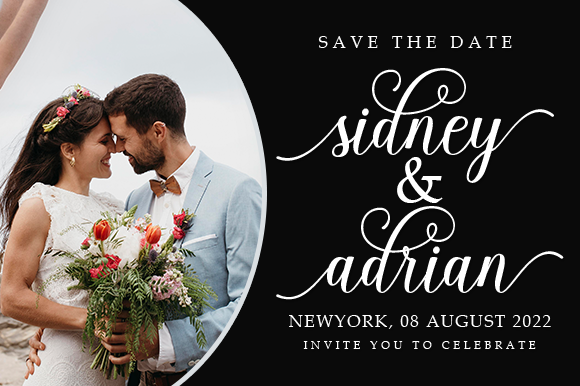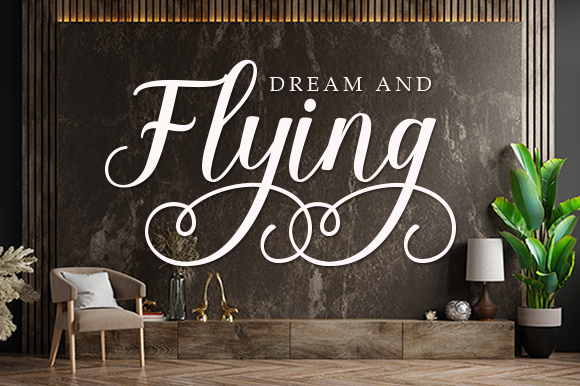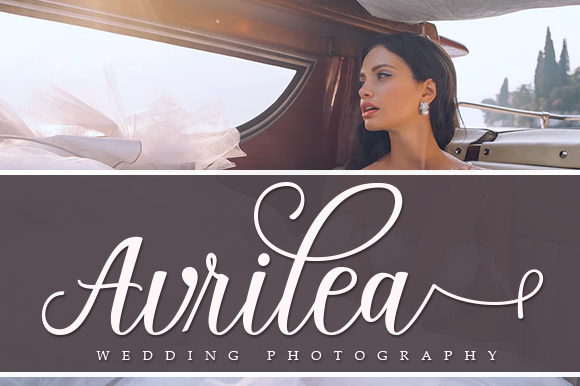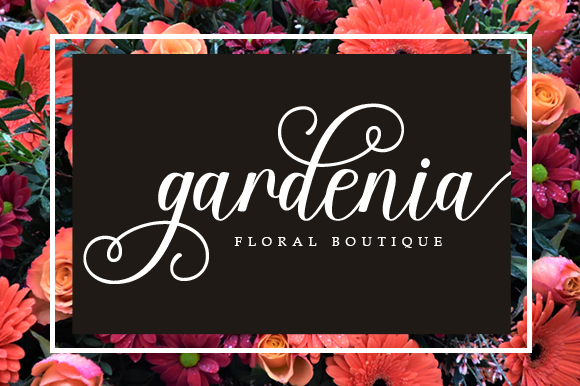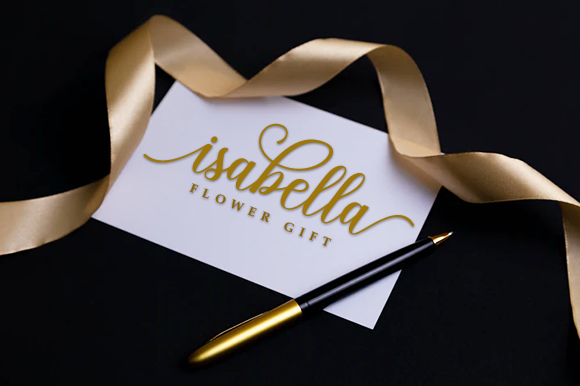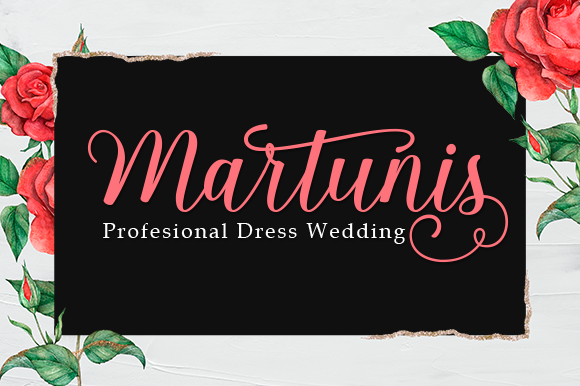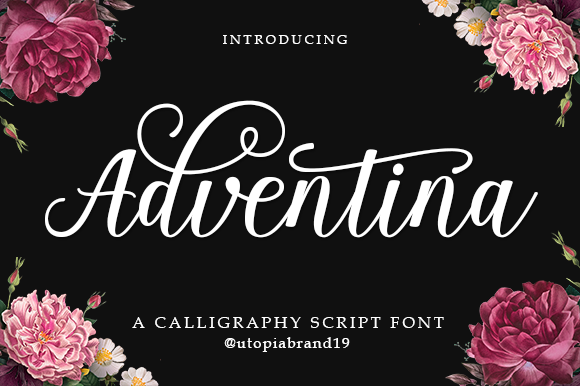
Unleash the Elegance: Discover the Adventina Script Font
Have you ever been stuck on a design project, searching for the perfect font to convey sophistication and style? We’ve all been there, pouring over countless options, trying to find that elusive “wow” factor. But what if we told you that there’s a font that’s guaranteed to elevate your designs to new heights? Say hello to the Adventina Script Font, a refined and chic script font that’s about to become your new go-to.
This stunning font is perfect for designers who want to add a touch of elegance to their projects. With its stylish alternates and ligatures, the Adventina Script Font is the ultimate tool for creating beautiful and sophisticated designs. Whether you’re working on a wedding invitation, a luxury brand campaign, or a high-end publication, this font is sure to impress.
Adventina Script Font Key Features
- Font Family: Adventina Script
- Unique Characteristics: Features elegant, cursive script with subtle flair and connection between letters, perfect for adding a touch of sophistication to designs.
Adventina Script Font Review
As a designer, I’ve had the chance to work with many beautiful fonts, but the Adventina Script Font has left me impressed. Here’s what I like about it: ✨ It’s elegant and sophisticated, perfect for creating a high-end feel in your designs. ✨ The font is highly legible, making it ideal for body text and headings. ✨ It comes in a wide range of languages, making it a great choice for international projects. ✨ The font is highly customizable, allowing you to adjust the spacing, size, and style to fit your needs.
However, there are a few limitations to consider: ⚠️ The font can be a bit too ornate for some projects, making it difficult to read in certain contexts. ⚠️ The font is quite large in file size, which can be a problem for designers who work with limited storage space. ⚠️ Some users have reported issues with kerning and glyph spacing, which can affect the overall appearance of your design.
Overall, I’d give the Adventina Script Font 4 out of 5 stars. While it’s not perfect, it’s a beautiful and versatile font that can elevate your designs to the next level. Just be sure to consider the potential limitations and use it wisely.
- Elegant and sophisticated design
- Highly legible
- Wide range of languages supported
Adventina Script Font Practical Application Guide
Use Adventina Script Font for:
– Event signage and banners
– Gift tags and wrapping paper
– Create a cohesive look by pairing it with other script fonts.
Adventina Script Font is ideal for:
– Whimsical and romantic designs
– Elegant and sophisticated branding
– Vintage and rustic-inspired projects
– Creating a sense of movement and flow in your designs.
Alternatives to Adventina Script Font
Carolyna Pro is a luxurious script font perfect for creating elegant and sophisticated designs. It features flowing connections and a high-end feel, making it ideal for invitations, wedding stationery, and luxury branding.
Compared to Adventina Script Font, Carolyna Pro has a more refined and polished look, with cleaner lines and more subtle flair. It’s a great choice when you need a high-end script font that exudes sophistication and elegance.
Great Vibes is a modern script font that’s perfect for creating fun and playful designs. It features a relaxed, handwritten feel and is ideal for use in social media graphics, advertising, and packaging.
Compared to Adventina Script Font, Great Vibes has a more casual and laid-back vibe, with a focus on expressiveness and personality. It’s a great choice when you need a script font that’s fun, playful, and engaging.
What is the recommended font size for using the Adventina Script Font?
The recommended font size for the Adventina Script Font varies depending on the application and intended use. For body text, a font size between 12-14 points is recommended. For headings and titles, a font size between 24-48 points is suitable. Experiment with different font sizes to find the optimal balance between readability and visual impact.